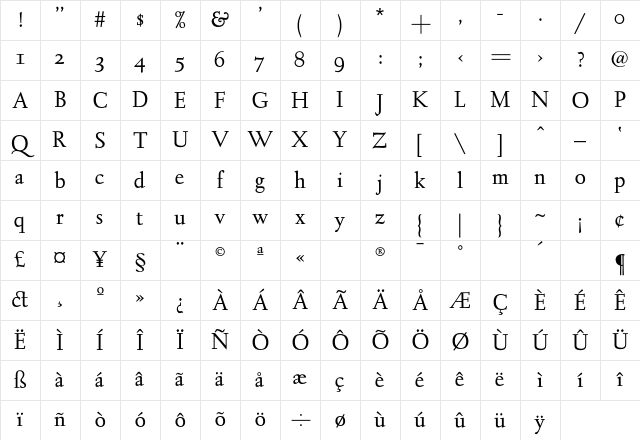
KaatskillH Regular
Design Context for KaatskillH
KaatskillH is a composed and adaptable typeface that performs quietly and consistently across a wide range of design contexts.